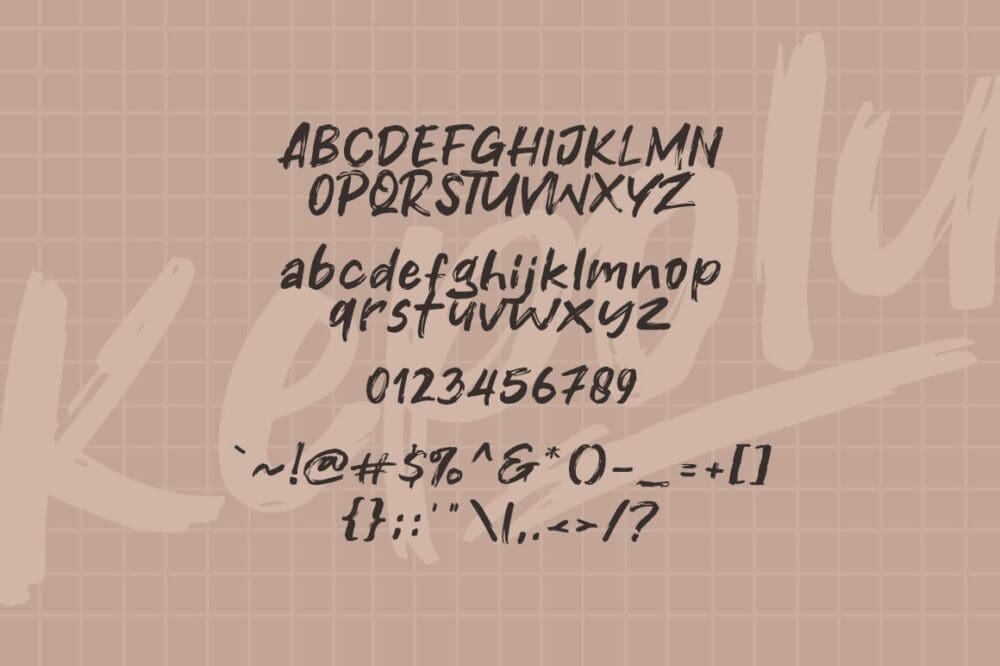
Kepolu Font
Kepolu is a modern brush Brush Font perfect for posters, logos, magazines, book covers, banners, and many more! Get this amazing freebie, and use it to create lovely designs!